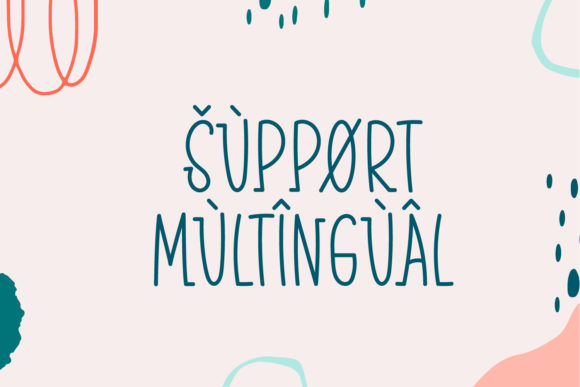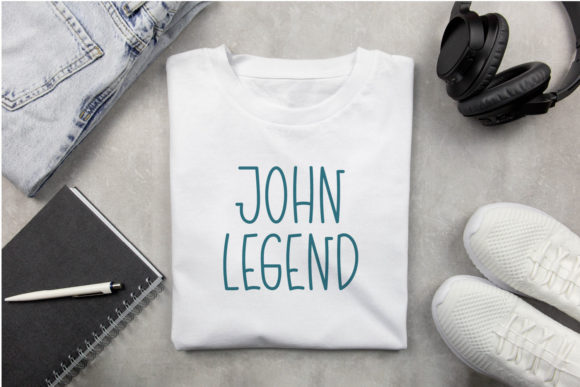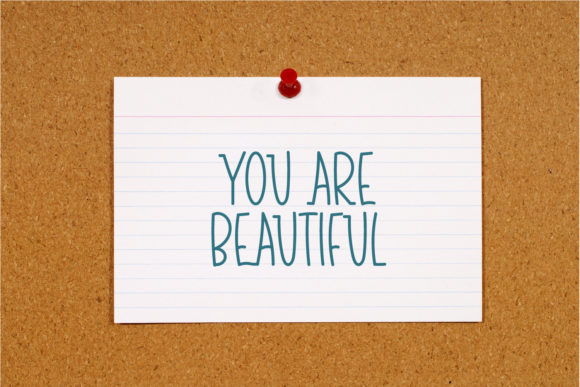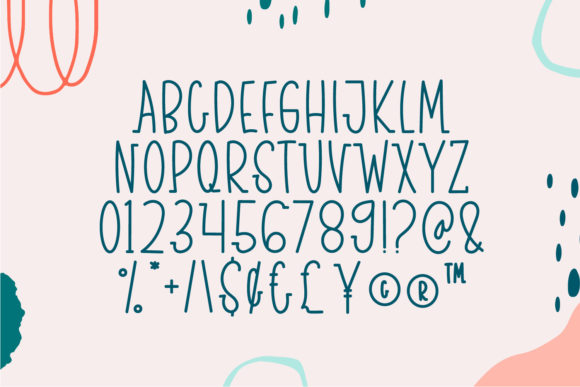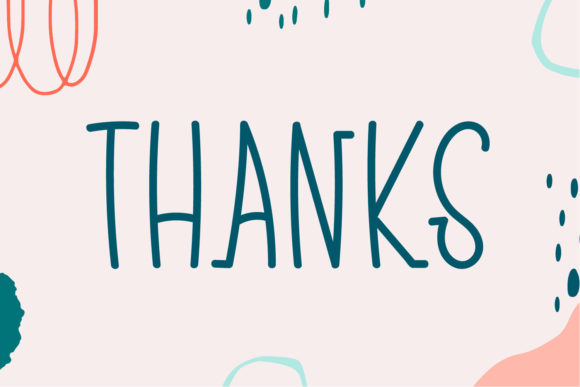
Kids Enjoy Font
KIDS ENJOY FONT SPECIMEN
Kids Enjoy is a fun, friendly, and cute-looking slab serif font. Whether you use it for cartoon-related designs, children’s games, or just any creation that requires a lovely touch, this font will be an amazing choice!